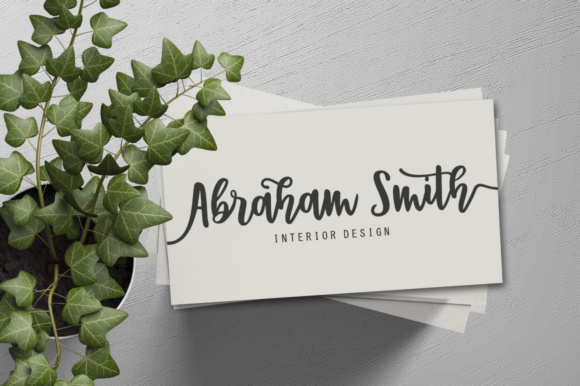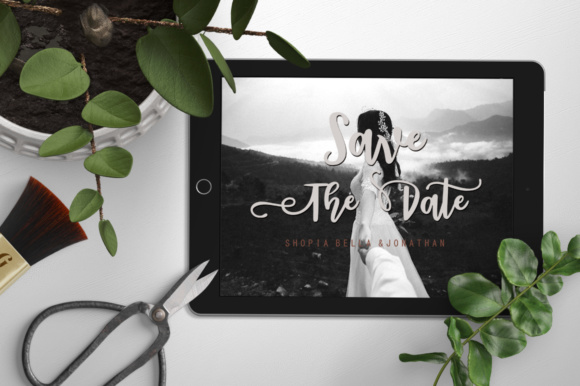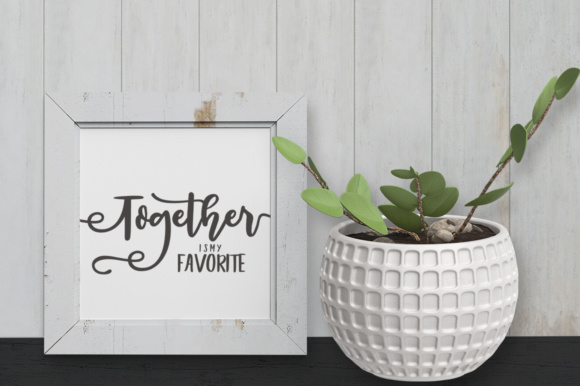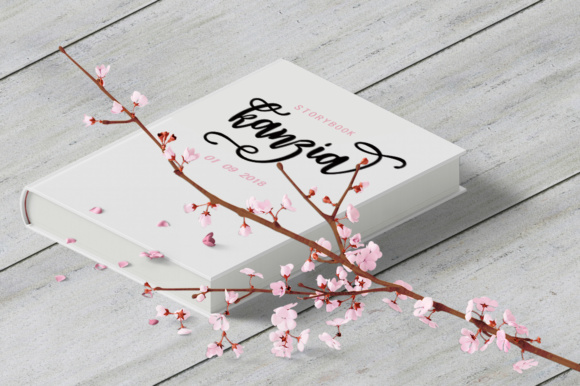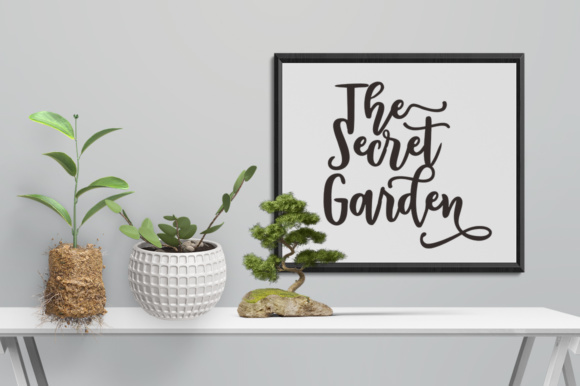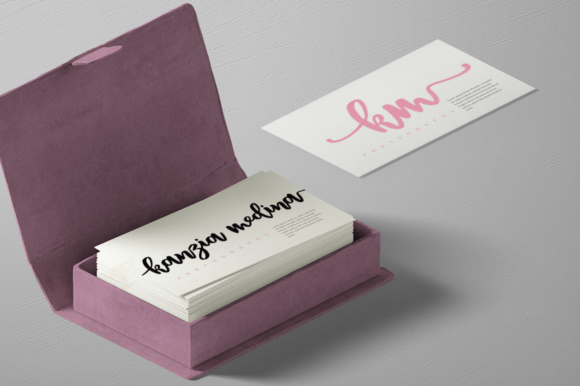
The Art of Elegant Typography: Unlocking the Potential of Bentonite Script Font
There’s something magical about the first time you sit down with a blank page and a pen, waiting for inspiration to strike. The flow of thoughts, the dance of letters, and the creation of something beautiful – it’s a moment every designer cherishes. For those who crave that special touch, Bentonite Script Font is a treasure trove waiting to be explored. This modern calligraphy font boasts smooth lines and a varying baseline, imbuing any design with a classic and elegant charm.
Whether you’re crafting headings, signatures, logos, or wedding invitations, Bentonite Script Font is an invaluable tool in your design arsenal. Its versatility and sophistication make it an ideal choice for a wide range of projects, from corporate identities to personal branding. With Bentonite Script Font, you can add a touch of sophistication and whimsy to your creations, setting them apart from the ordinary and making a lasting impression on your audience.
Bentonite Script Font Key Features
- Unique Characteristics: Handwritten, cursive, elegant script font with unique ligatures and flourishes
- Language Support: Multilingual support, including Latin, Cyrillic, and Greek alphabets
- Style Options: 2 styles: Regular and Italic, with various font weights and sizes
Bentonite Script Font Review
Bentonite Script Font is a beautiful, elegant script font that I’ve had the pleasure of working with. Here are my thoughts:
- ✨ Unique and stylish design: Bentonite Script Font stands out from the crowd with its unique and stylish design. It’s perfect for adding a touch of elegance to any project.
- ✨ Versatile: This font is incredibly versatile and can be used in a variety of contexts, from logos and branding to invitations and certificates.
- ✨ Easy to read: Despite its elegant design, Bentonite Script Font is surprisingly easy to read, making it a great choice for long blocks of text.
- ⚠️ Limited language support: Bentonite Script Font may not support all languages, which could be a limitation for projects that require multilingual support.
- ⚠️ Not ideal for small text: While Bentonite Script Font is easy to read, it may not be the best choice for small text, as the letterforms can become difficult to distinguish.
Bentonite Script Font is a beautiful and versatile font that is sure to impress. While it may have some limitations, it’s a great choice for anyone looking to add a touch of elegance to their project. With its unique design and easy-to-read letterforms, it’s a font that’s sure to stand out.
Bentonite Script Font: A Practical Application Guide
Getting Started with Bentonite Script Font
The Bentonite Script font is a beautiful, elegant script font perfect for various design applications. To use it, follow these steps:
Tips for Getting the Most Out of Bentonite Script Font
1. Use Bentonite Script font for titles, headings, and other emphasis elements to add a touch of elegance to your design.
2. Pair Bentonite Script font with a clean, sans-serif font for body text to create a visually appealing contrast.
3. Experiment with different font sizes and styles to find the perfect balance for your design.
Common Use Cases for Bentonite Script Font
The Bentonite Script font is perfect for:
- Product packaging and labels